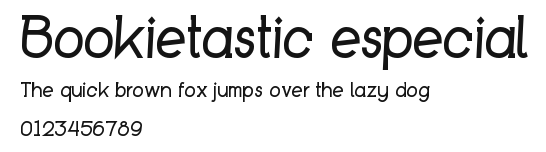
Bookietastic especial Preview
• Font Name: Bookietastic especial
• Full Font Name: Bookietastic estilo cómic
• Designer: Yun González
About Bookietastic especial.ttf
Bookietastic especial.ttf is a modern, elegant sans-serif font designed for ultimate readability and visual harmony. Perfect for branding, headlines, web design, and print materials.